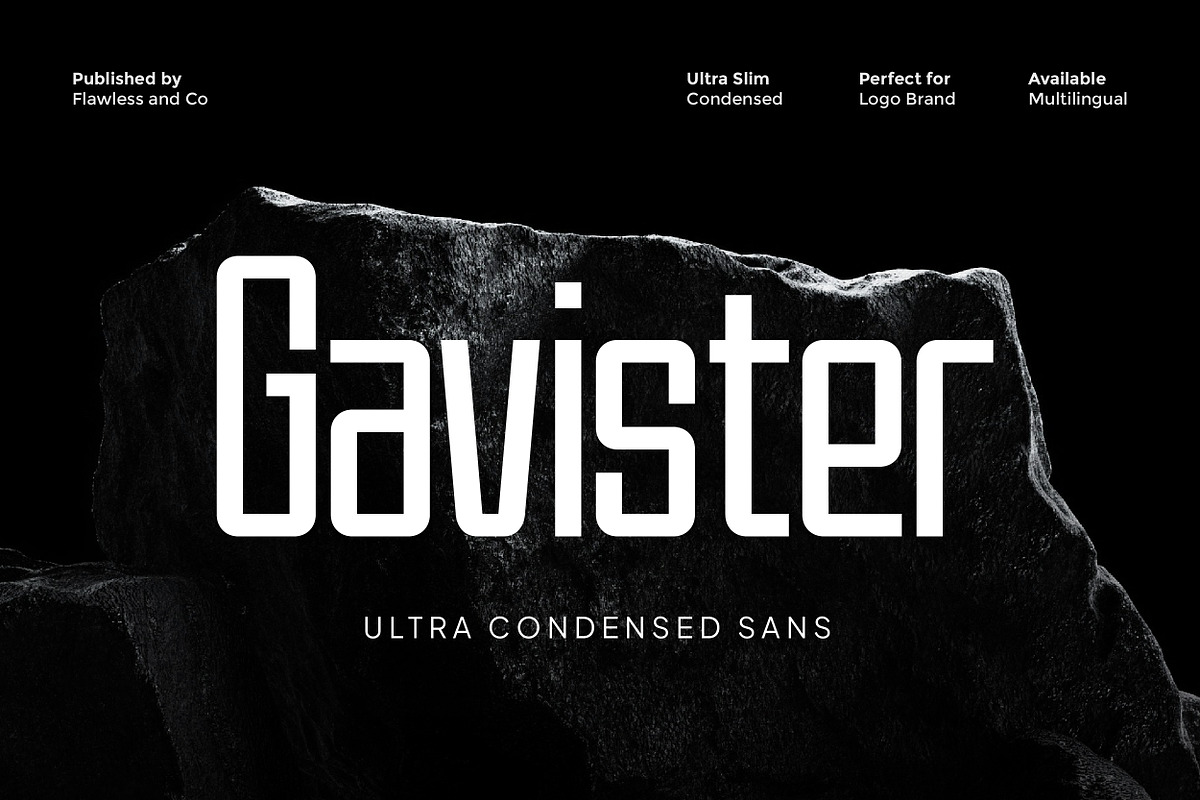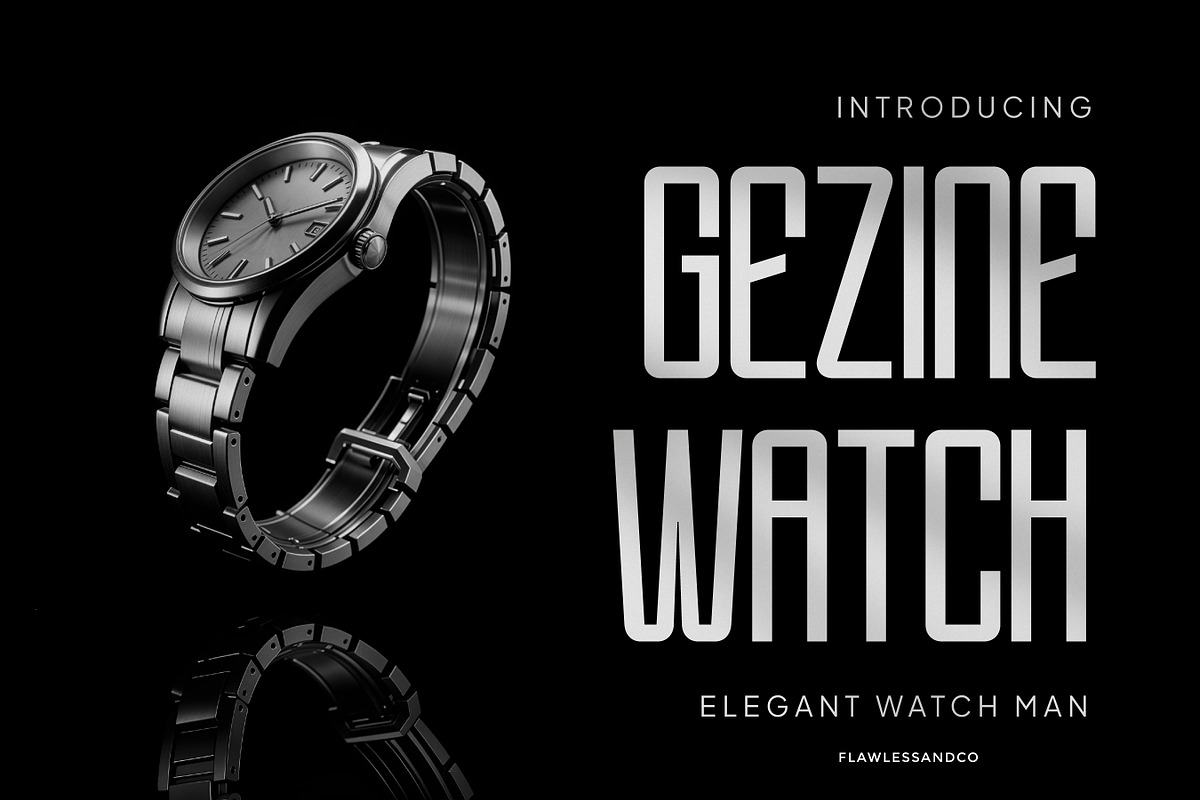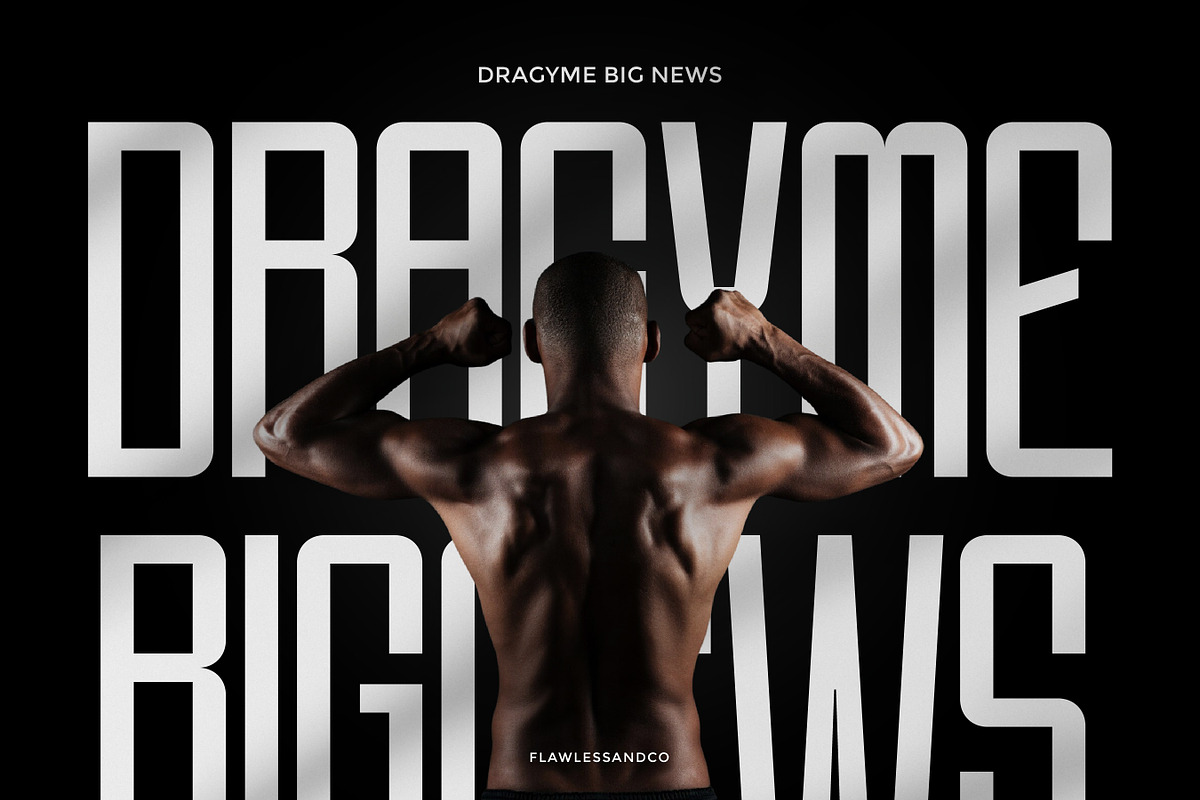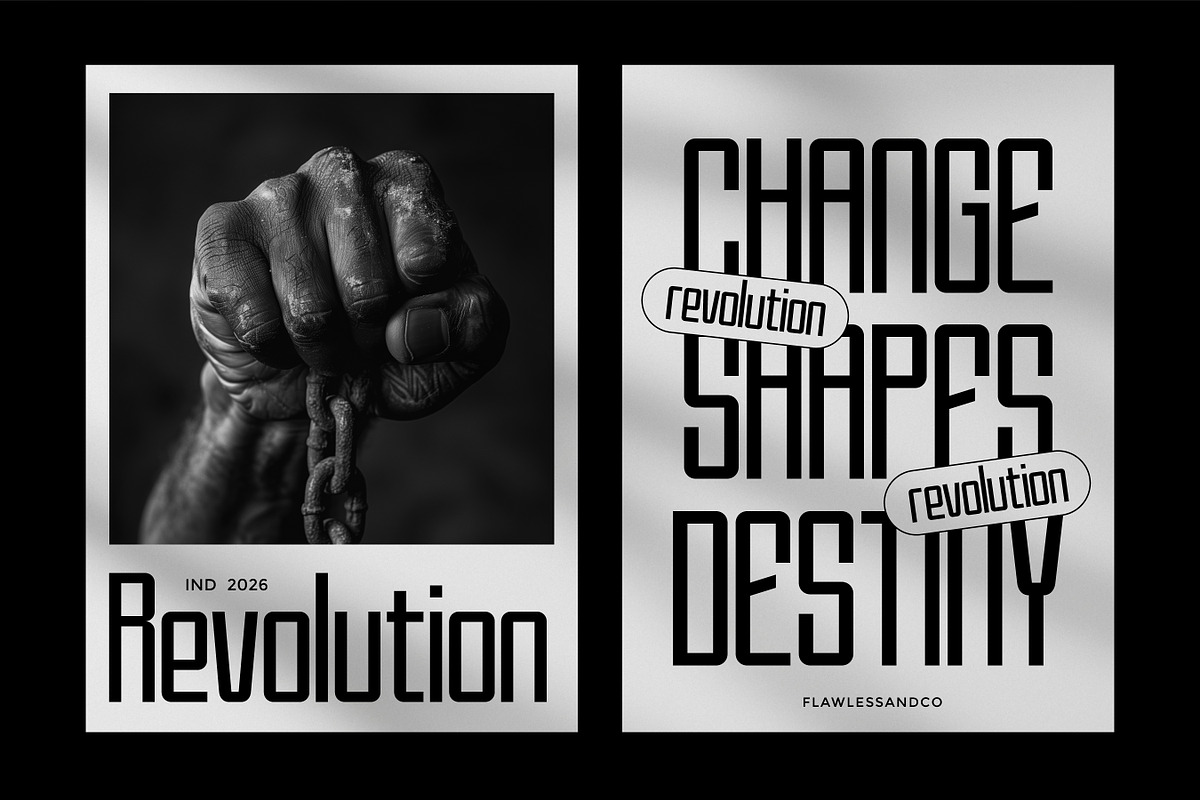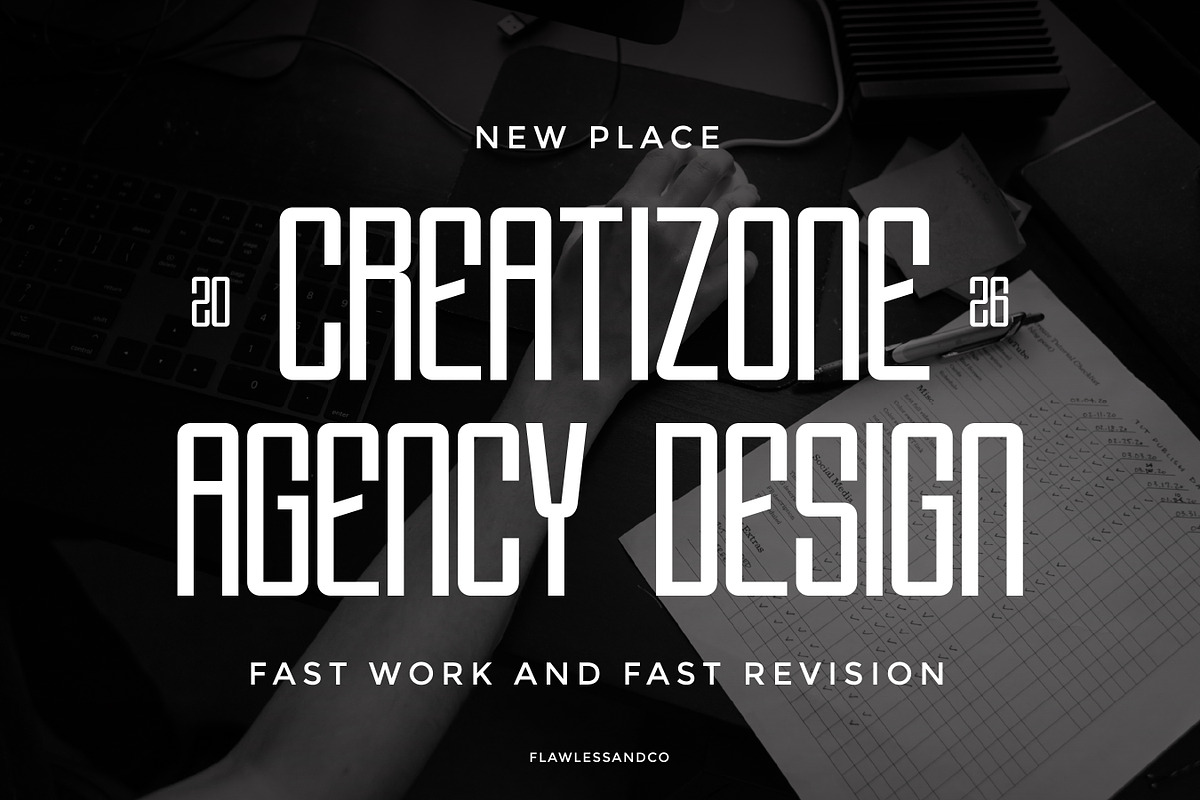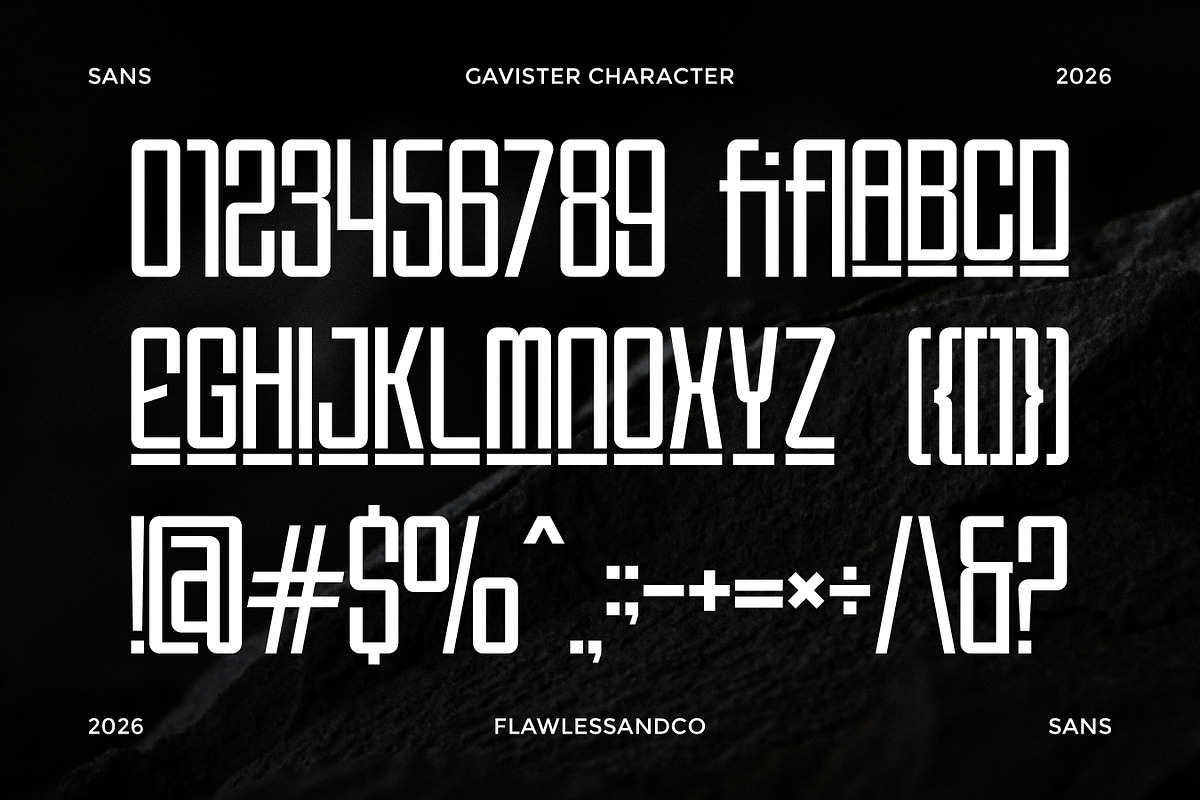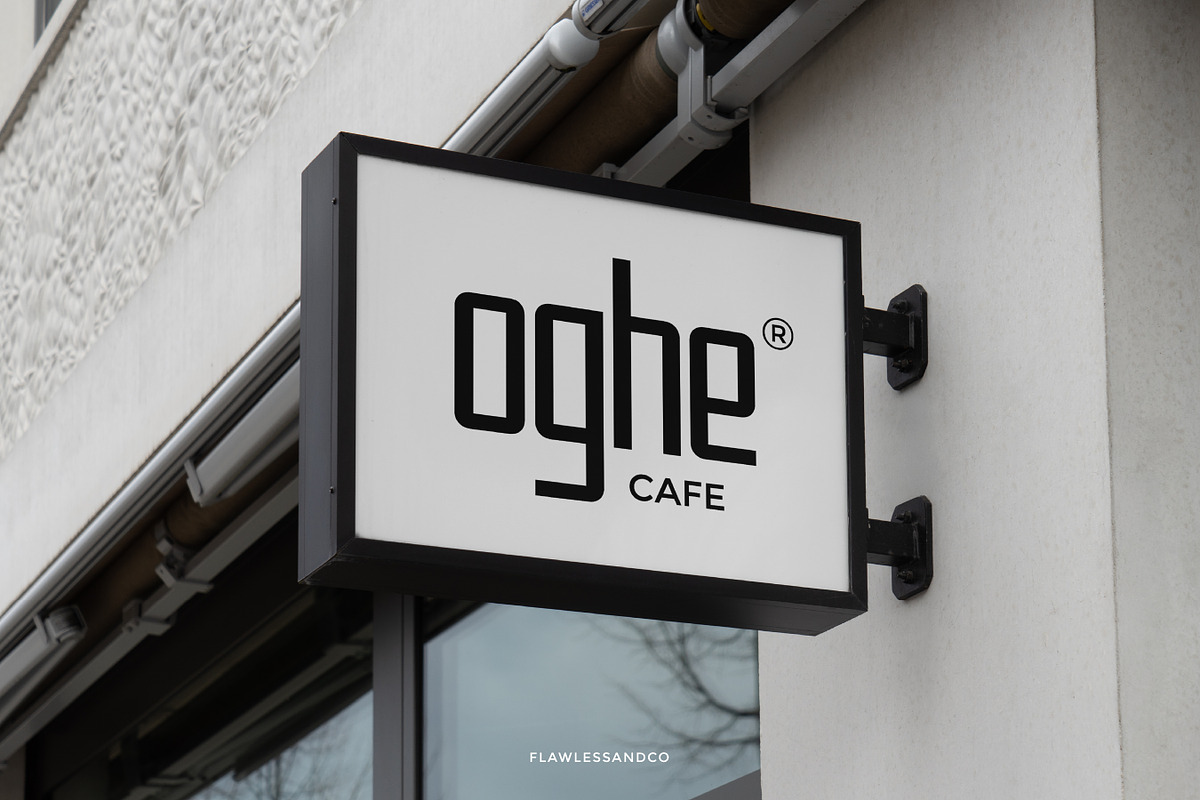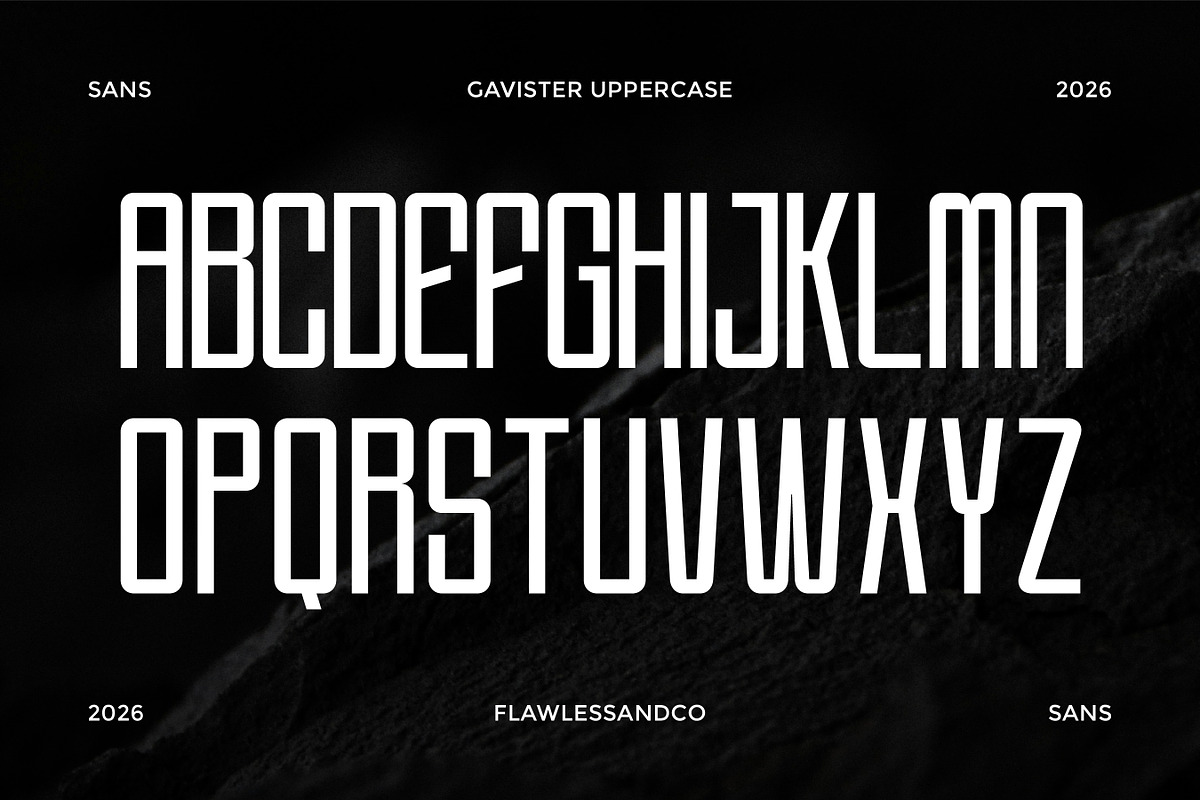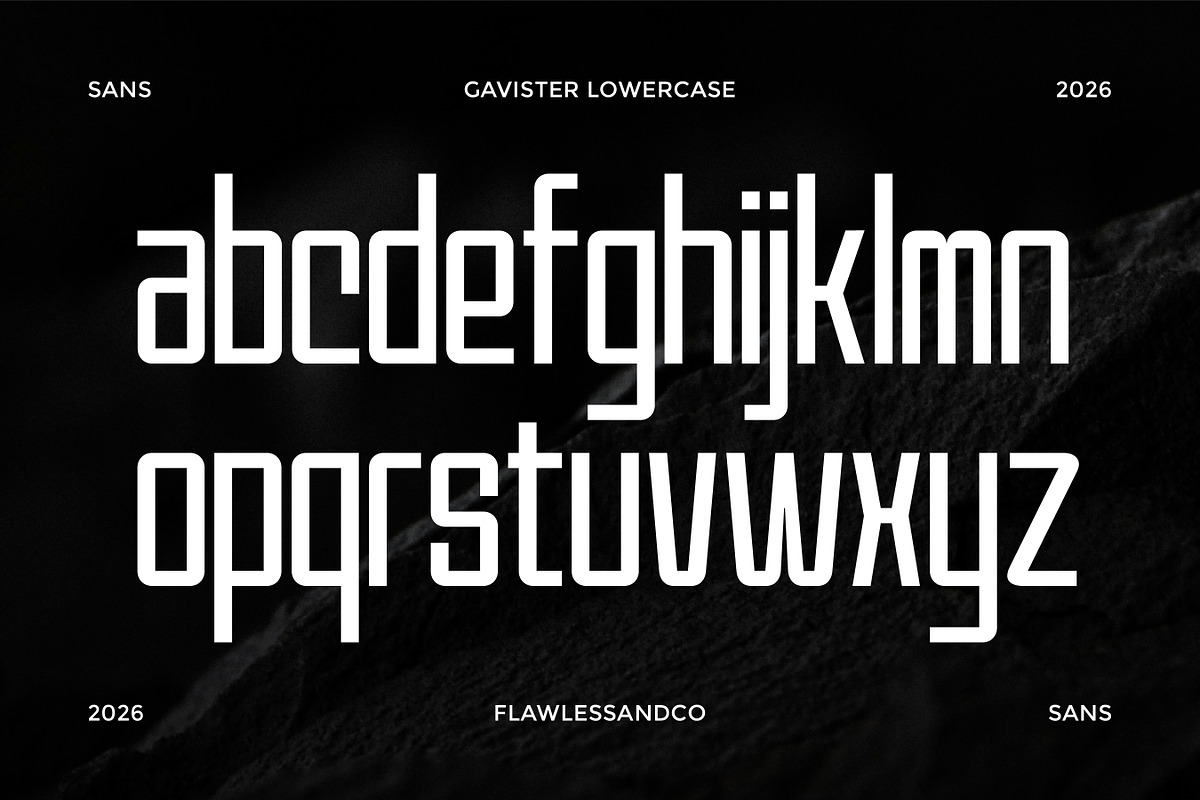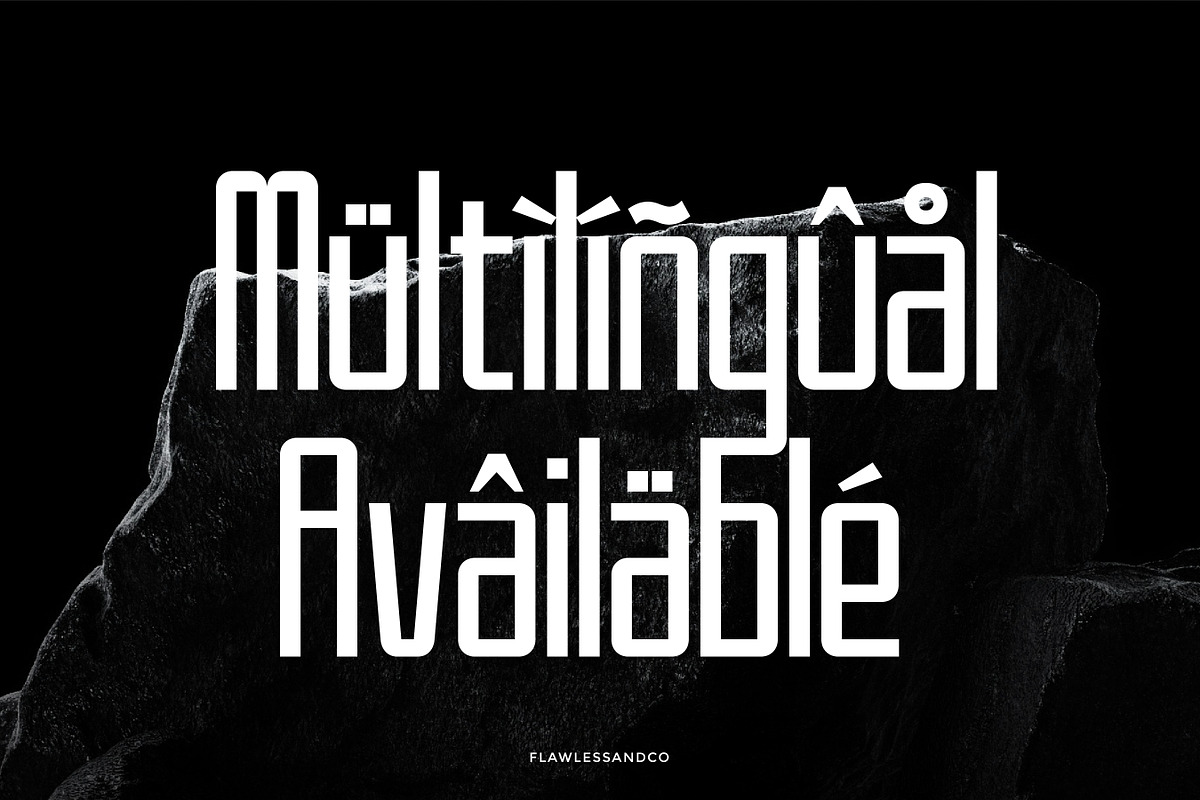
Gavister - Condensed Sans Serif
Gavister - Ultra Condensed Sans Serif Font
Gavister is a ultra condensed sans serif font built for strong visual impact and efficient use of space. Its tall and narrow letterforms create a distinctive vertical rhythm, making it an excellent choice for designs that need to feel bold, modern, and highly structured. With clean lines and sharp proportions, Gavister delivers a contemporary aesthetic that stands out in both digital and print applications. Designed to perform exceptionally well in tight layouts, Gavister allows you to fit more text without sacrificing clarity. Its confident and compact style makes it ideal for attention-grabbing headlines, branding, and editorial compositions that demand a modern edge.
Who Should Use Gavister?
Gavister is perfect for designers and creatives who need a space-saving yet impactful font with a modern and professional tone. It’s especially suitable for projects that rely on strong typography and clean visual hierarchy.
Suitable For:
- Bold headlines and titles
- Posters and promotional materials
- Editorial layouts and magazines
- Modern and corporate branding
- Logo and identity design
- Packaging and product design
- Social media graphics
- Contemporary and high-impact typography